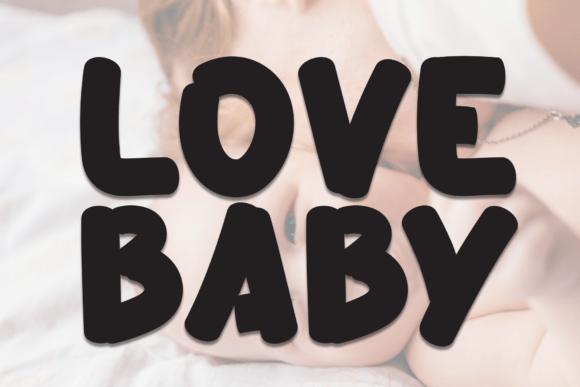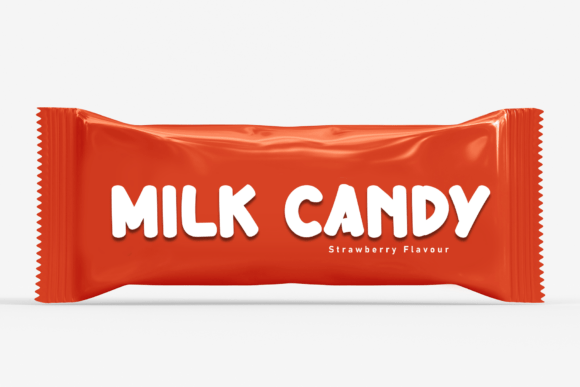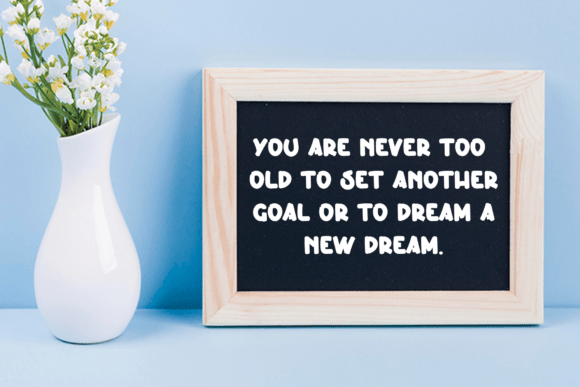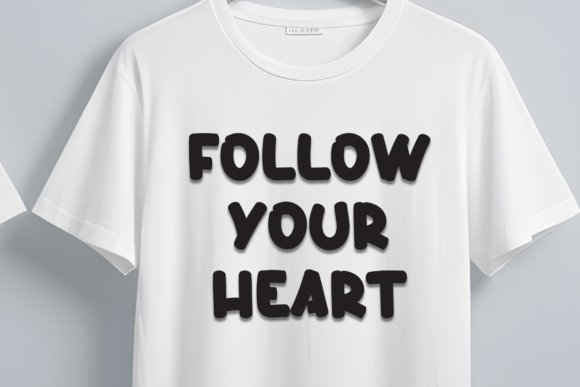
Love Baby Font
About the Love Baby Font
The wait is over! The incredible Love Baby Font is now available for your design toolkit. Love Baby is a sweet and chunky handwritten display font designed to radiate warmth and joy. With its soft curves and playful character, it’s perfect for baby products, nursery prints, children’s books, and anything that needs a touch of tenderness and charm.
Love Baby Font excels in headlines, short text blocks, and branding applications where a friendly, approachable aesthetic is desired. Its charm works well on packaging for children’s products, greeting cards, or invitations. However, its chunky weight and handwritten style make it less suitable for body text or UI elements requiring high readability. Avoid using it for large amounts of continuous text.
Pairing Love Baby with a clean sans-serif like Open Sans for body copy creates a strong contrast, balancing its playful energy with a professional touch. Alternatively, a delicate script font could enhance its whimsical nature for projects requiring a touch of elegance. A simple geometric sans-serif would offer a modern counterpoint, suitable for logos or branding needing both personality and sophistication.
The font’s core personality is undeniably playful and approachable, conveying warmth and a sense of childlike wonder. Its soft curves and slightly irregular letterforms contribute to this friendly, approachable feel, ideal for projects targeting younger audiences or those aiming for a feeling of gentle optimism.
Love Baby Font Usage Examples
Love Baby Font Example